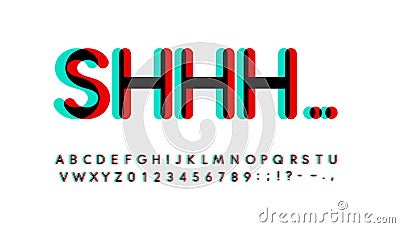
Overprint letters and numbers set. Glowing turquoise and red spectrum effect style vector latin alphabet. Font for #155217711
Overprint letters and numbers set. Glowing turquoise and red spectrum effect style vector latin alphabet. Font for digital events, promotions, logos, banner, monogram and poster. Typography design